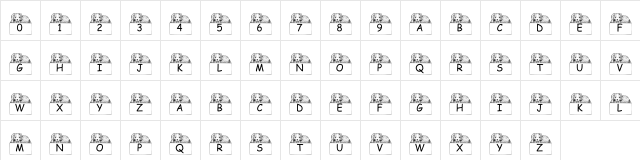
pf_dog in a box Regular
Design Context for pf_dog in a box Typeface
pf_dog in a box is a composed and adaptable typeface that performs quietly and consistently across a wide range of design contexts.